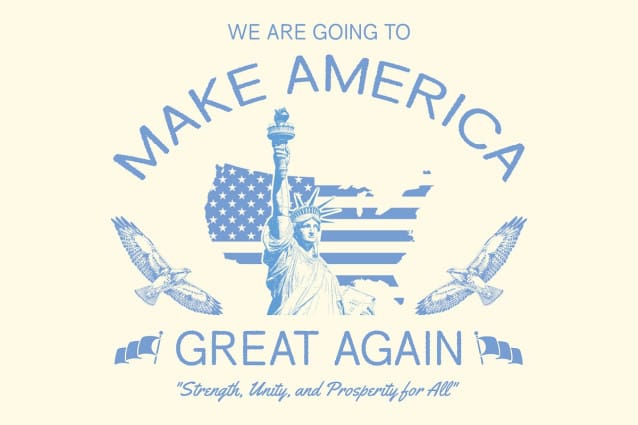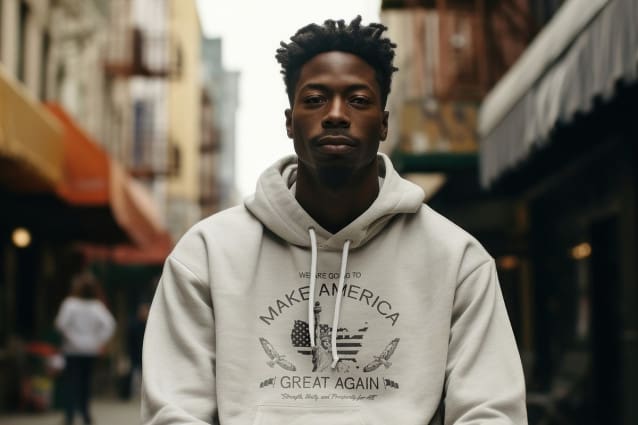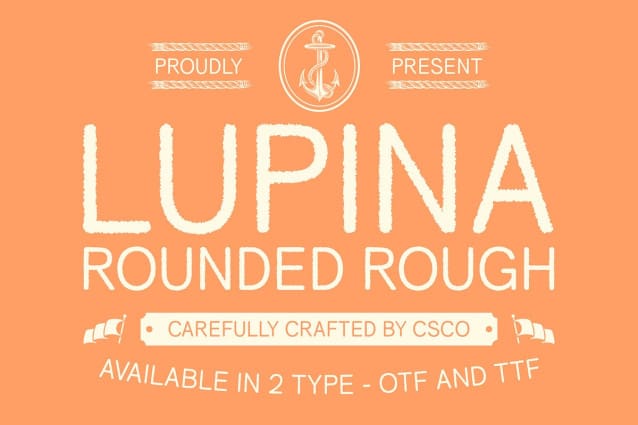
Lupina Rounded Rough Font
Lupina Rounded Rough Font is a modern sans-serif font that seamlessly blends grotesque and rounded shapes with a distinctive rough effect. This unique combination creates a versatile typeface that balances strong readability and functionality with a touch of organic texture. The grotesque design provides clear and efficient letterforms, while the rounded edges lend a friendly and approachable feel. The rough effect introduces a raw, imperfect texture that adds a layer of bold character and dynamic energy.
Perfect for Bold and Expressive Design Projects This font is particularly suited for projects that require a modern yet impactful look. Its rough texture gives it an edgy, expressive quality, making it ideal for creative branding, eye-catching posters, and expressive design work that aims to make a statement. Whether you’re designing for a trendy event, crafting a unique brand identity, or creating visually striking graphics, this rounded rough font offers the perfect blend of sophistication and ruggedness.
Versatile Design for a Modern and Distinctive Impression This rounded rough font excels in applications where a strong, memorable presence is needed. Its combination of bold grotesque design, soft rounded shapes, and raw, textured finish provides a fresh and contemporary aesthetic that stands out.